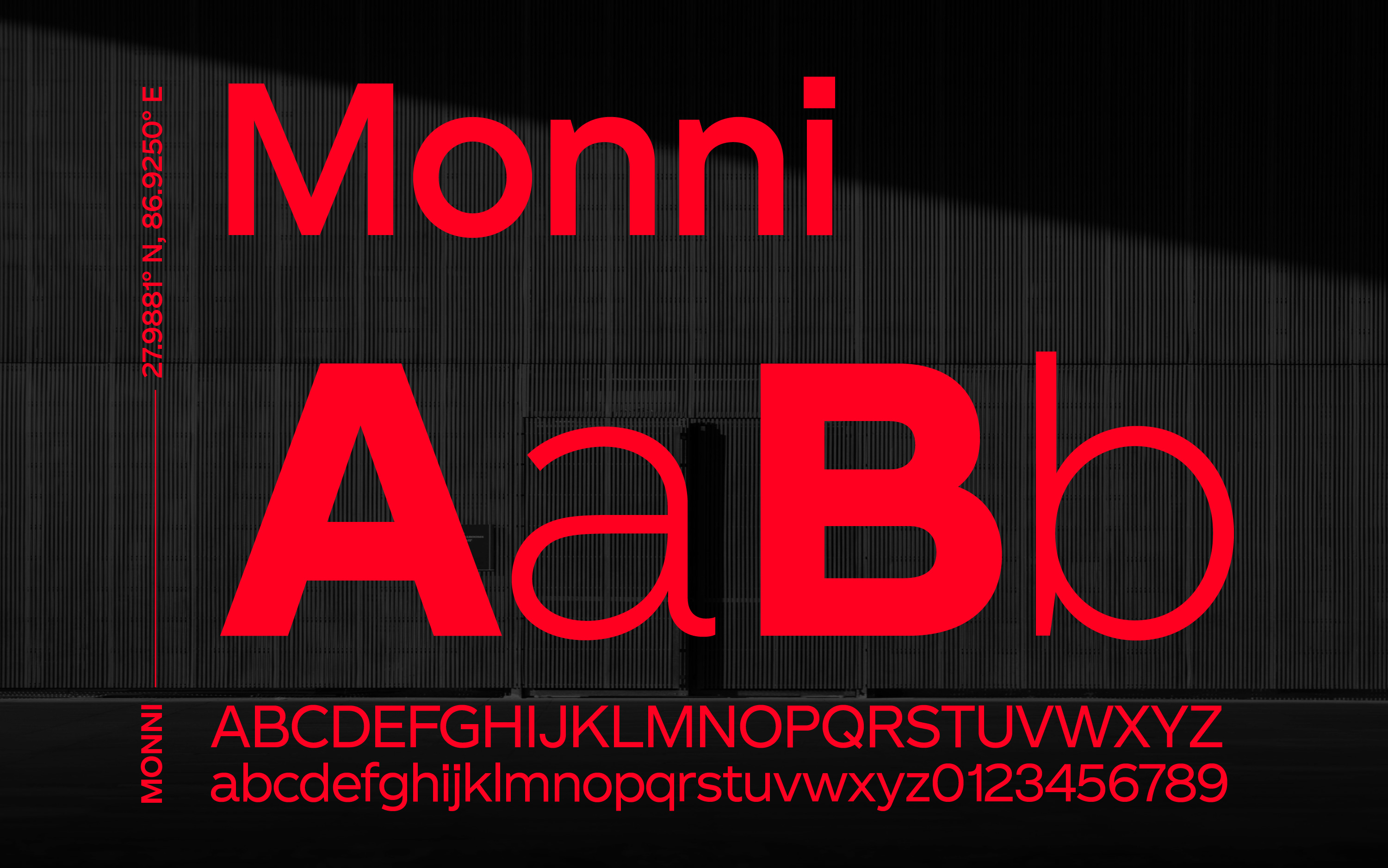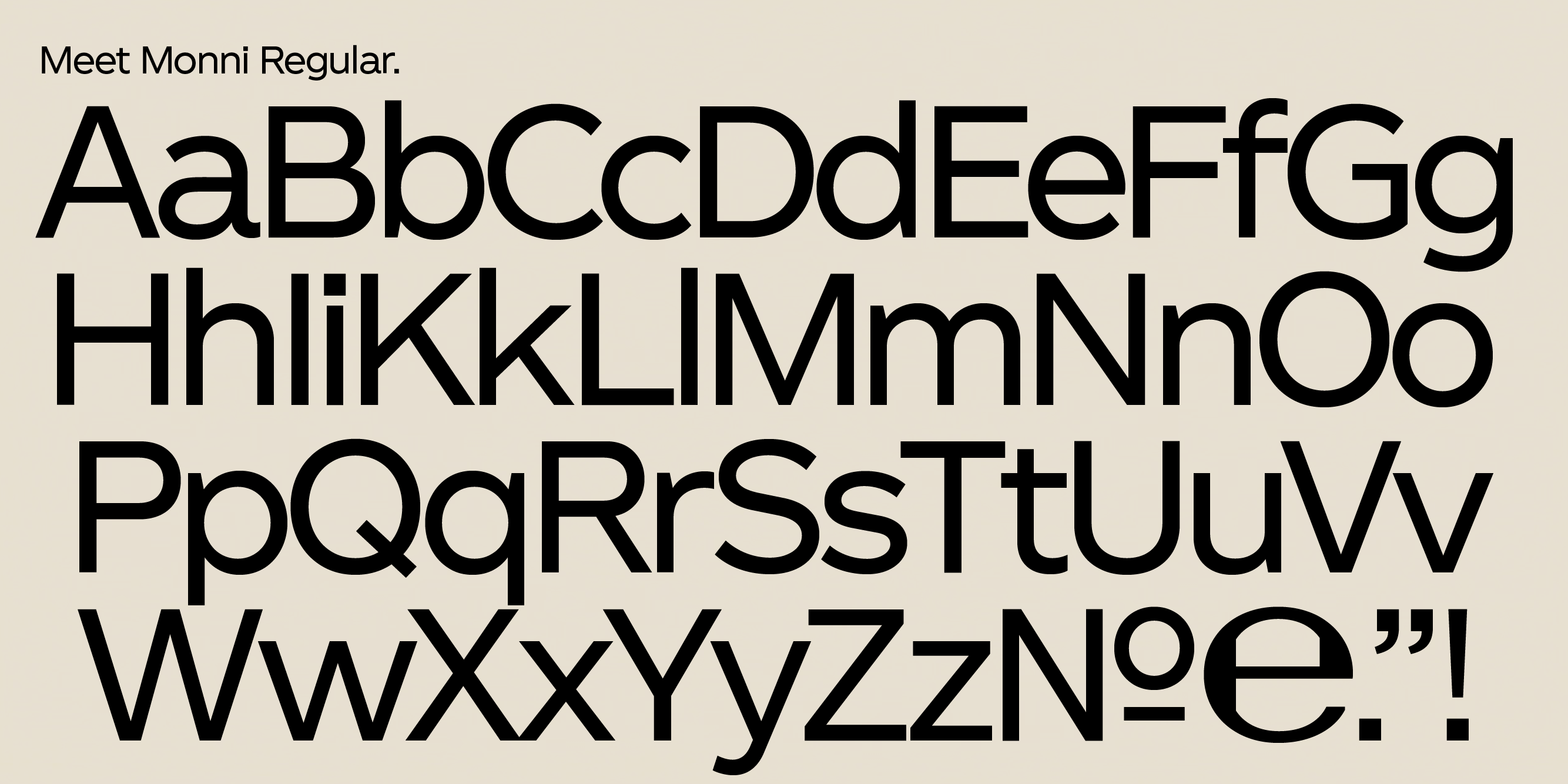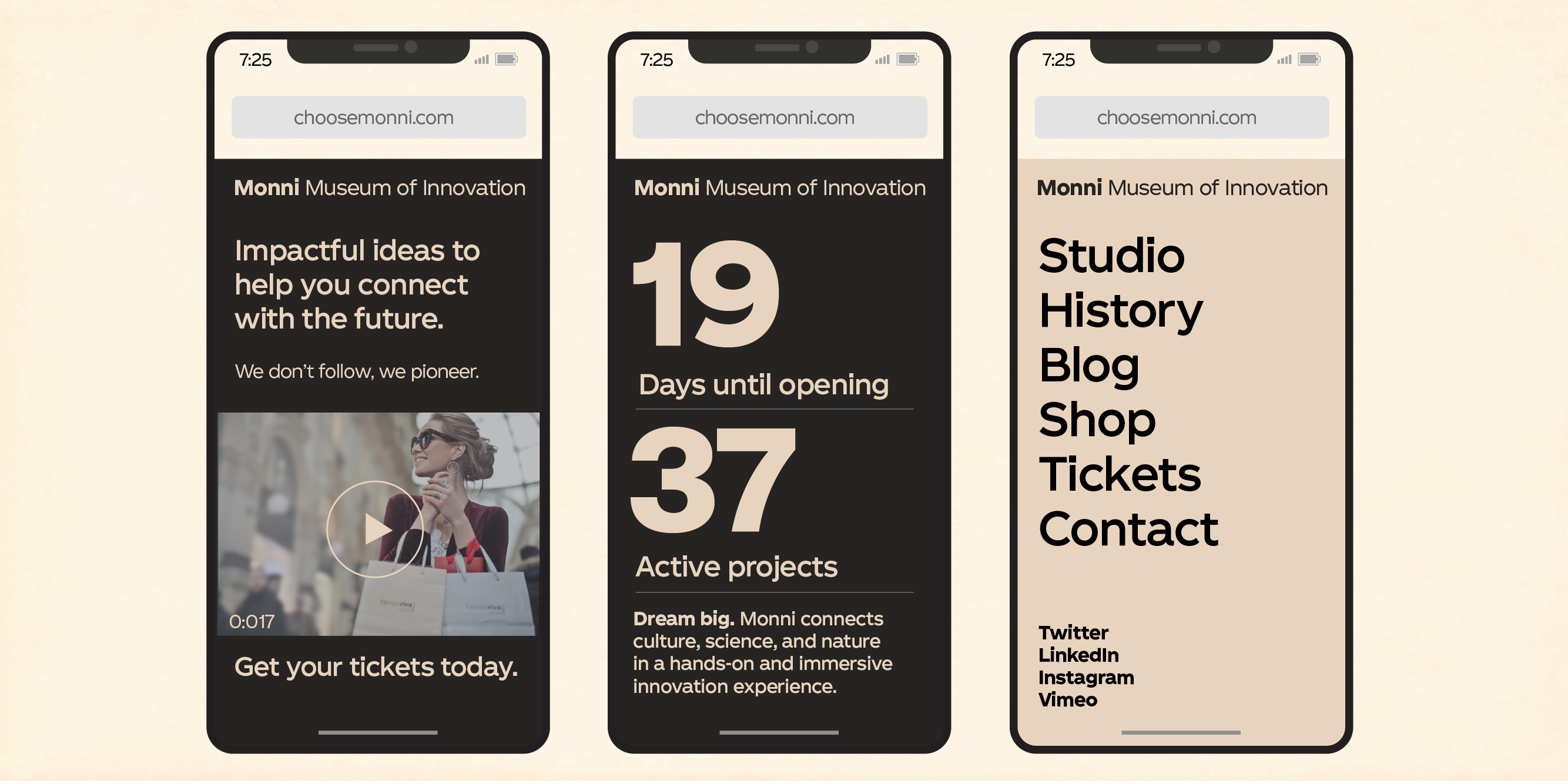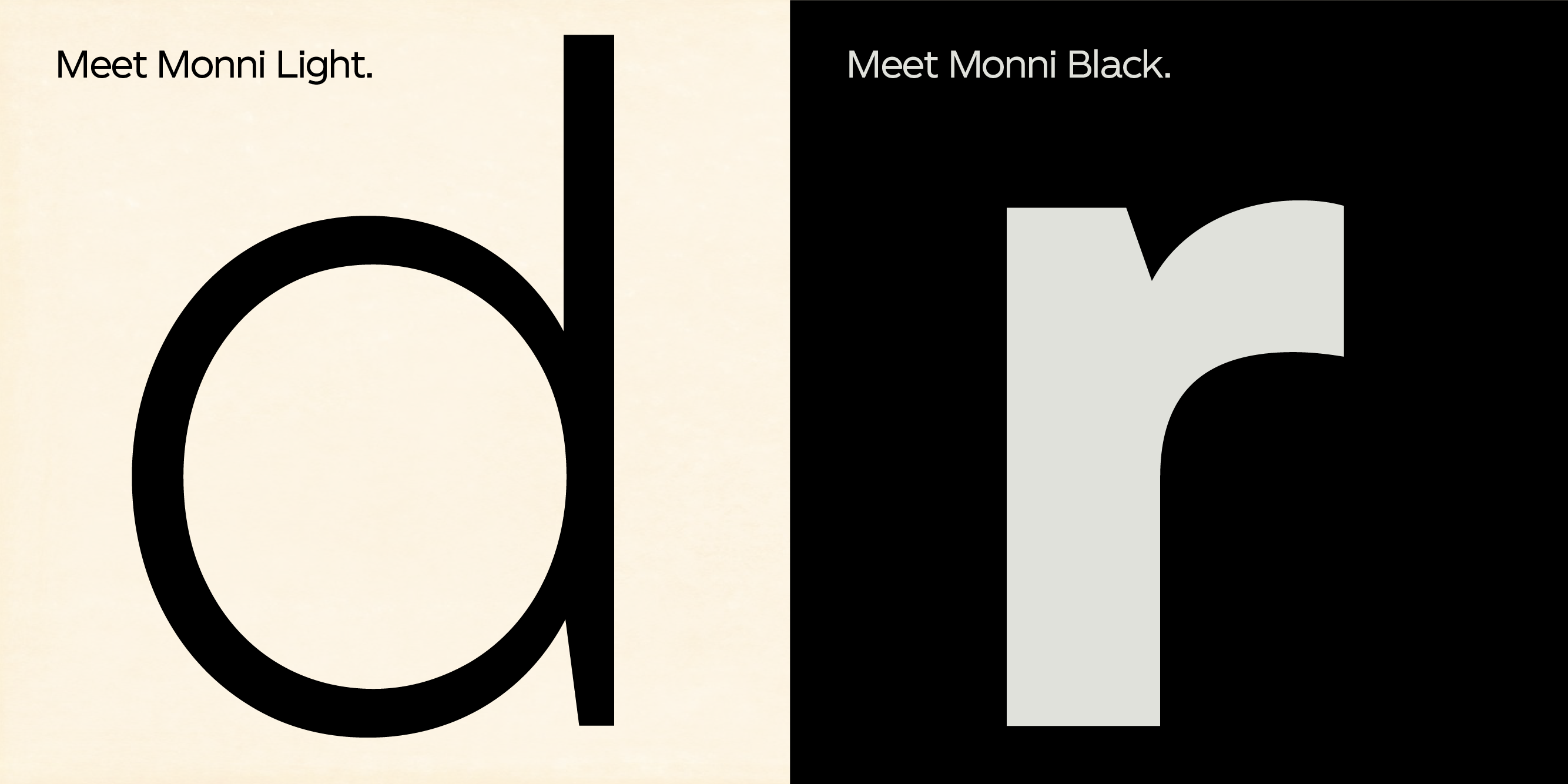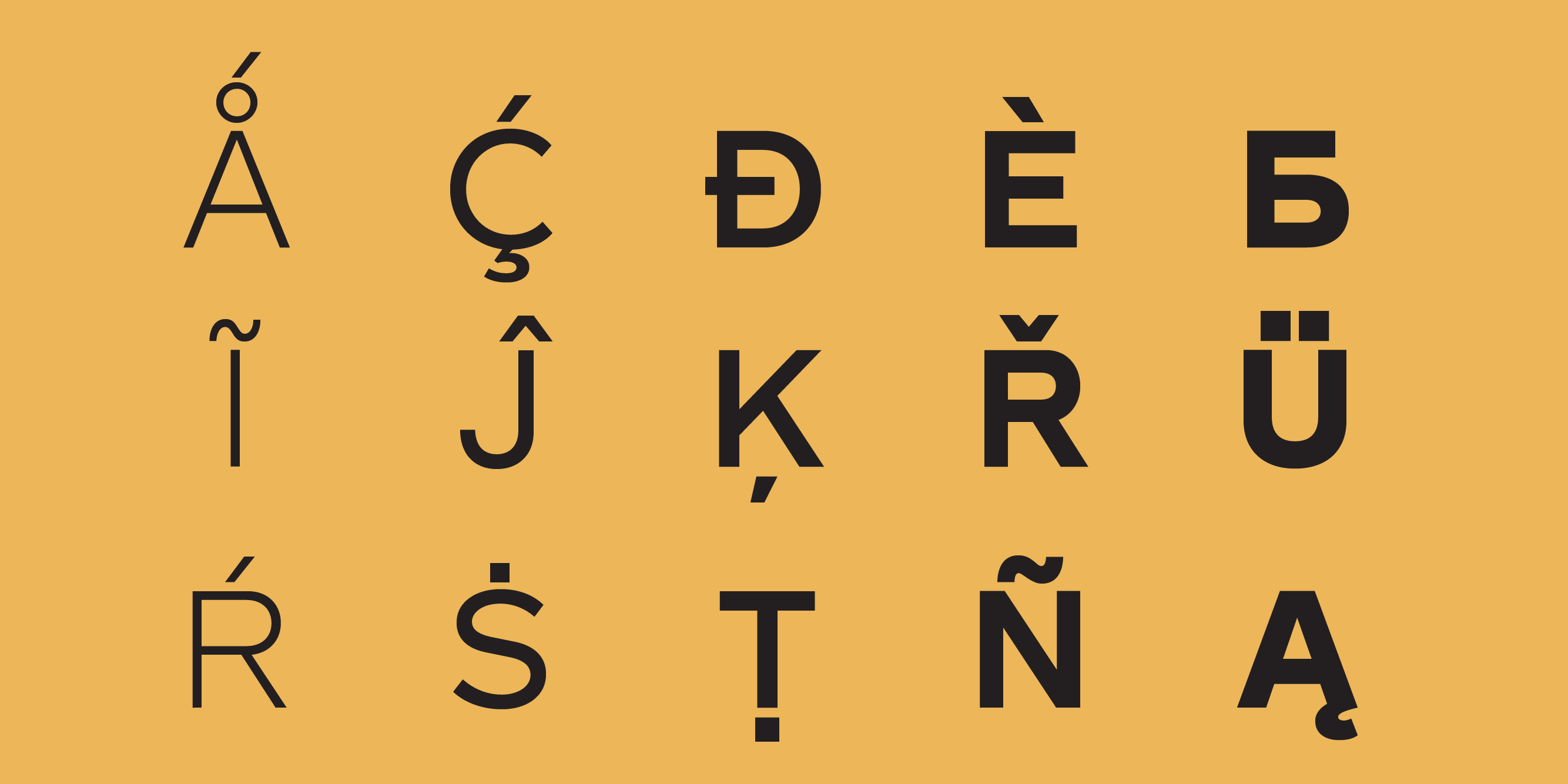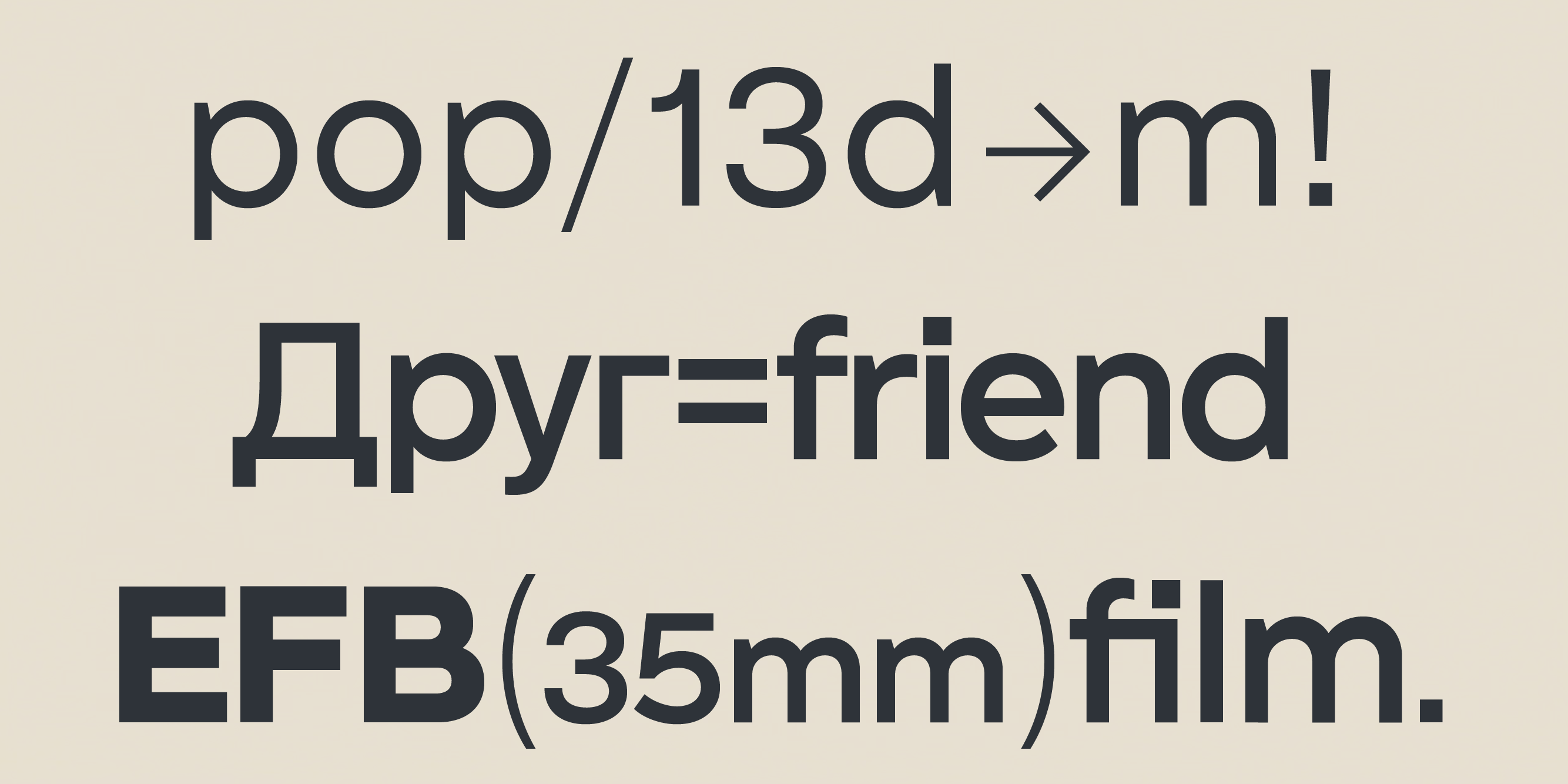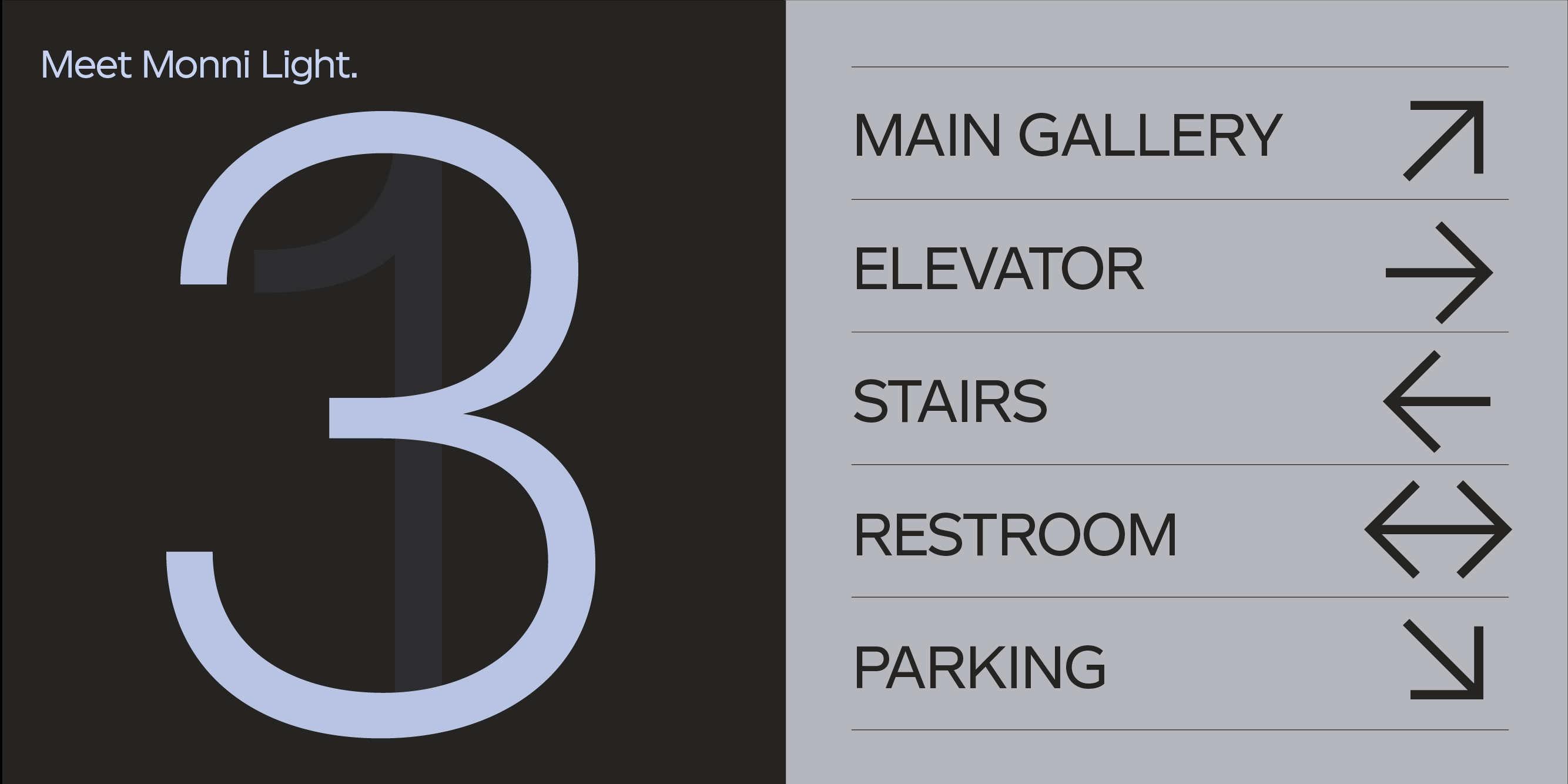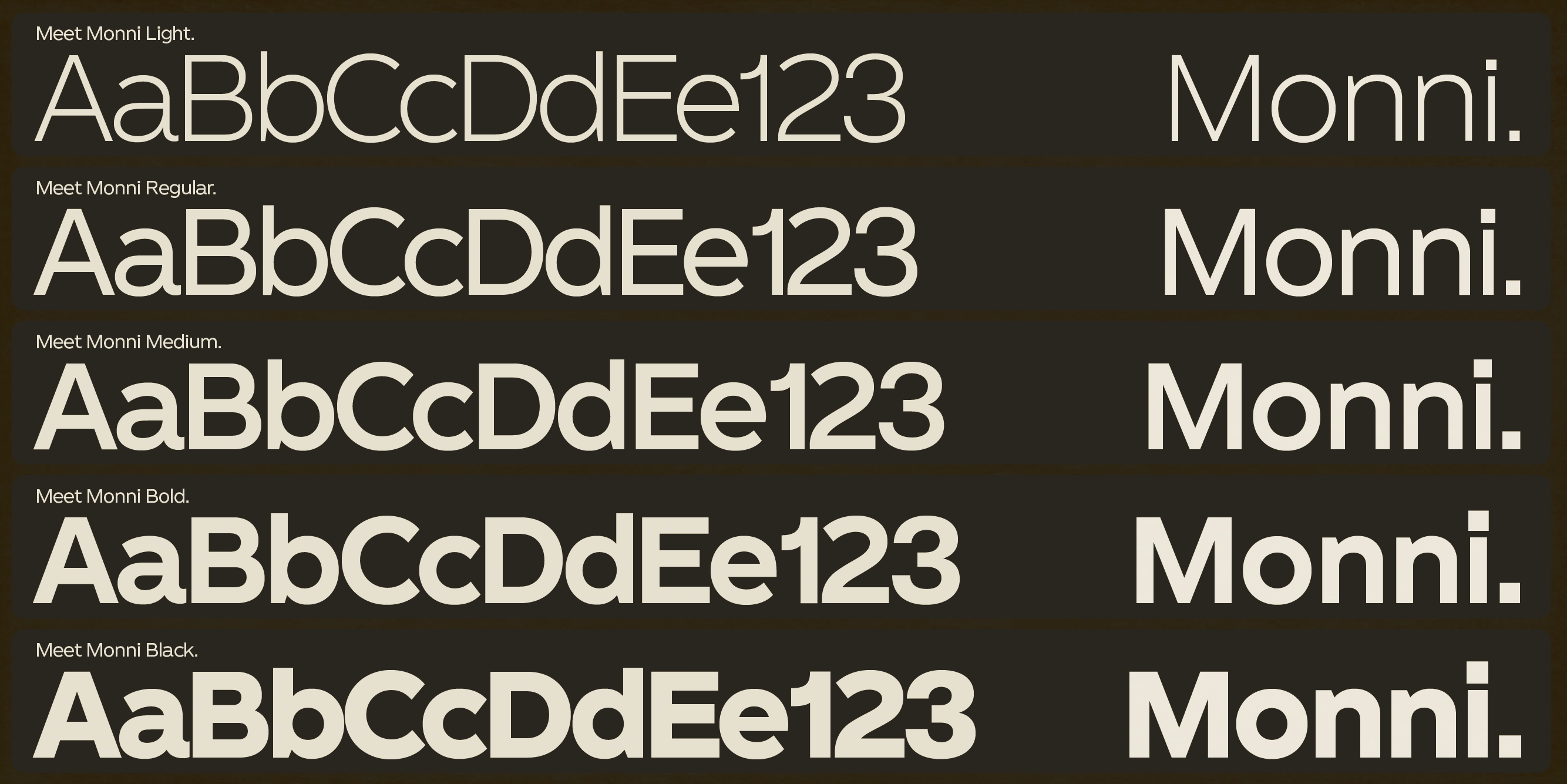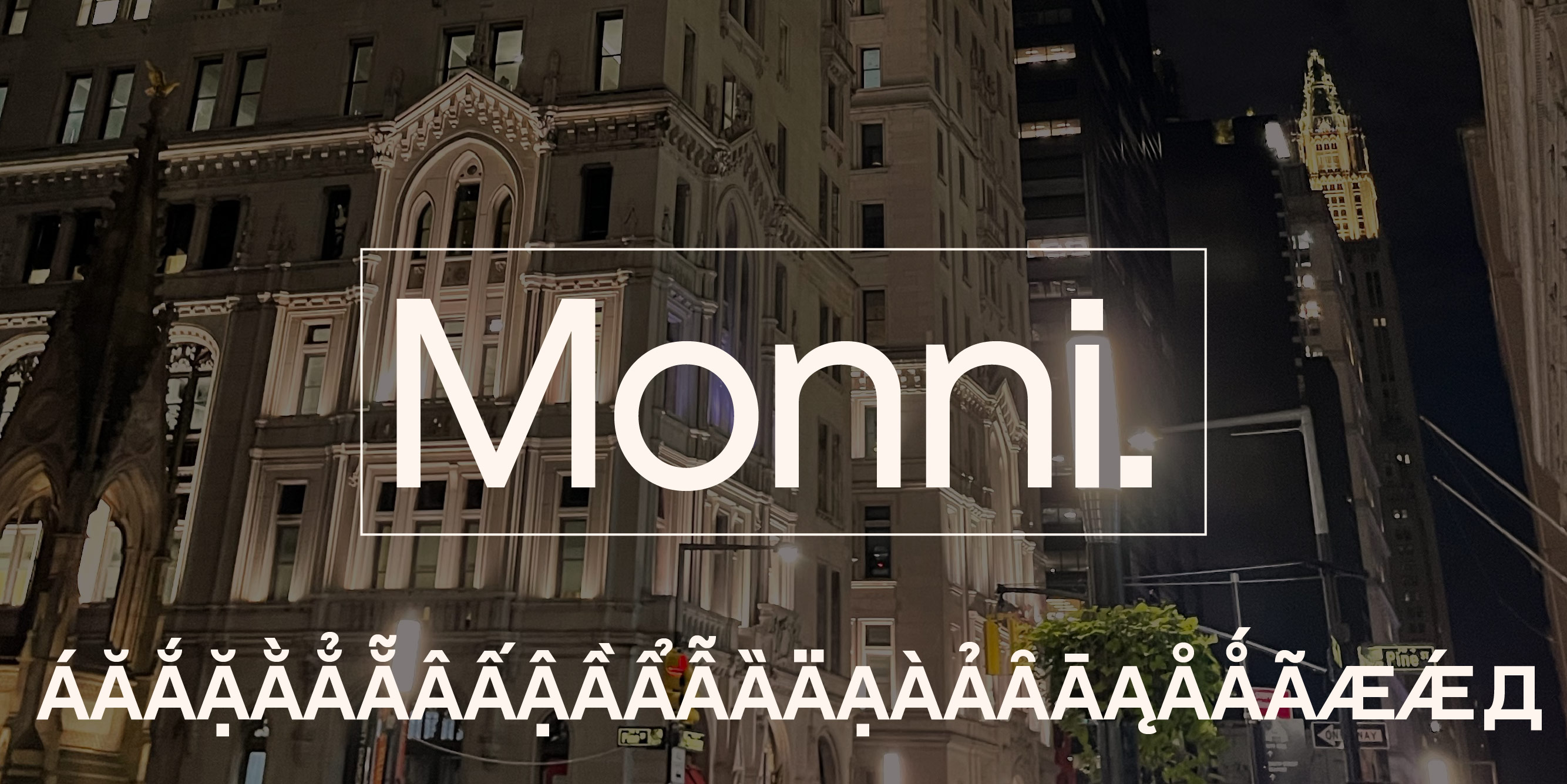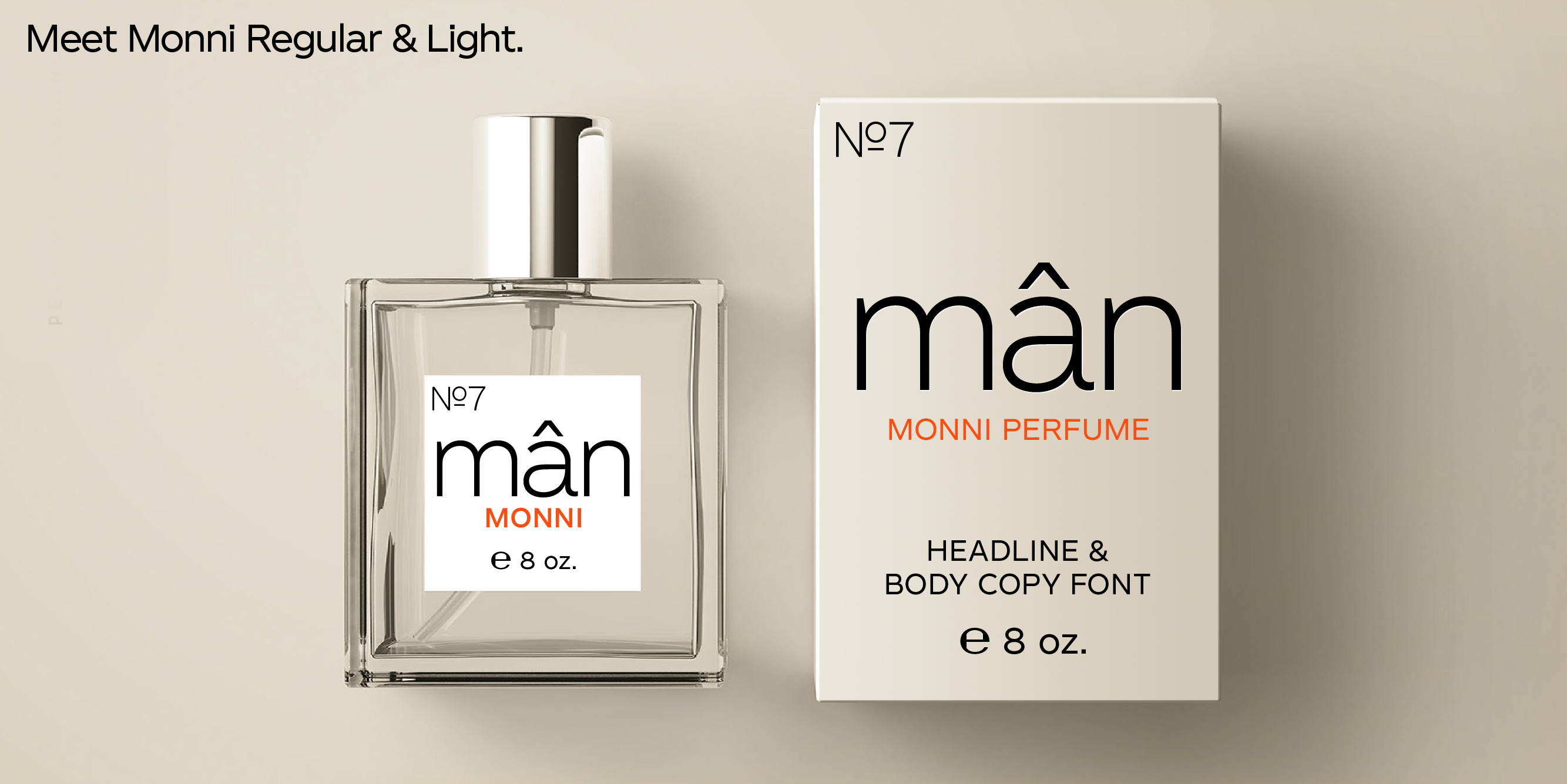
Monni
WORLD-CLASS BRANDING FONT
Monni provides full European, Slavic, and Vietnamese language support. Use this ultra modern sans serif to build your brand. Learn more about licensing Monni.
Monni stylish designer font
FIVE WEIGHTS FROM LIGHT TO BLACK
Multilingual designer font
SUPER MULTILINGUAL + SPECIAL CHARACTERS
Designer Web Font
BIG IMPACT ON SMALL SCREENS
Designer poster font
DESIGNER POSTER FONT
Designer Campaign font
CAPTIVATING CAMPAIGN FONT
Swiss style poster font
LAYOUT DESIGN FONT
Designer presentation font
EXPRESS TRUST THROUGH TYPOGRAPHY
Swiss style poster font
LAYOUT DESIGN FONT
High x-height font
HIGH X-HEIGHT
Swiss style poster font
AMPLE LIGATURES
Modern sans serif
MODERN TYPOGRAPHY ANGLES
Modern typography design
MODERN FONT DESIGN